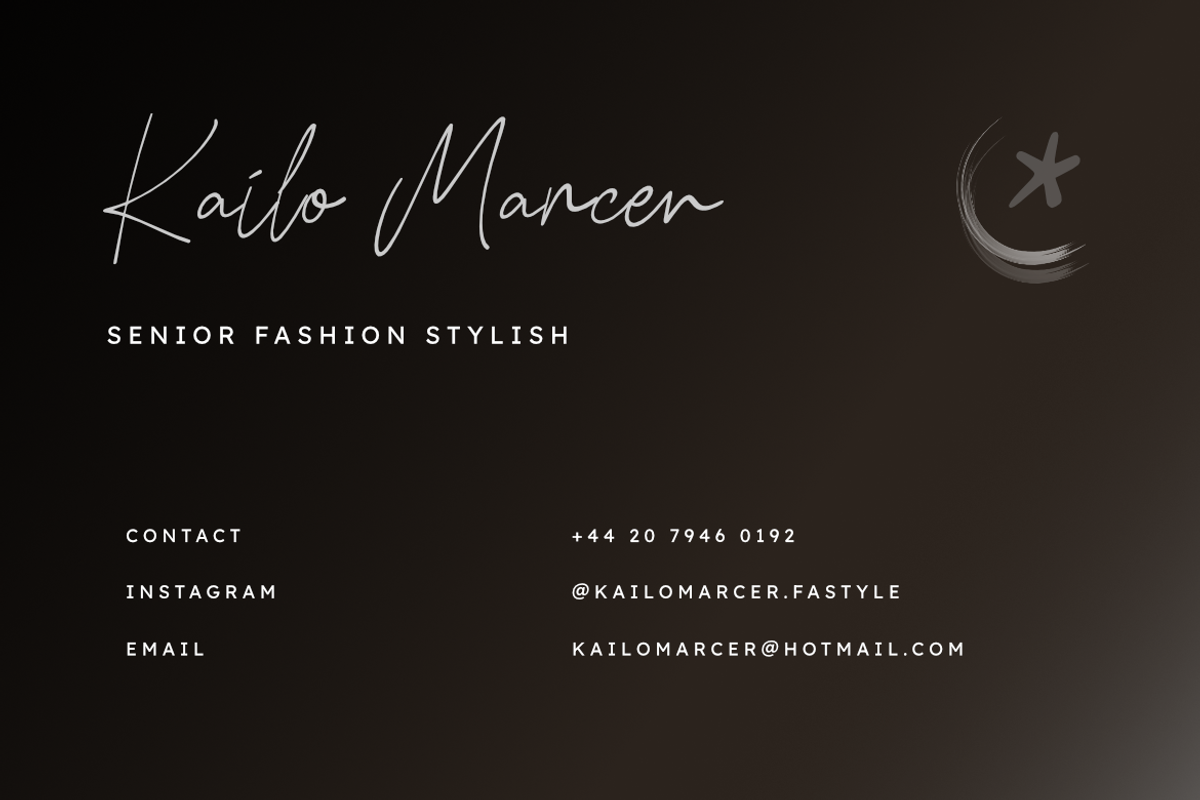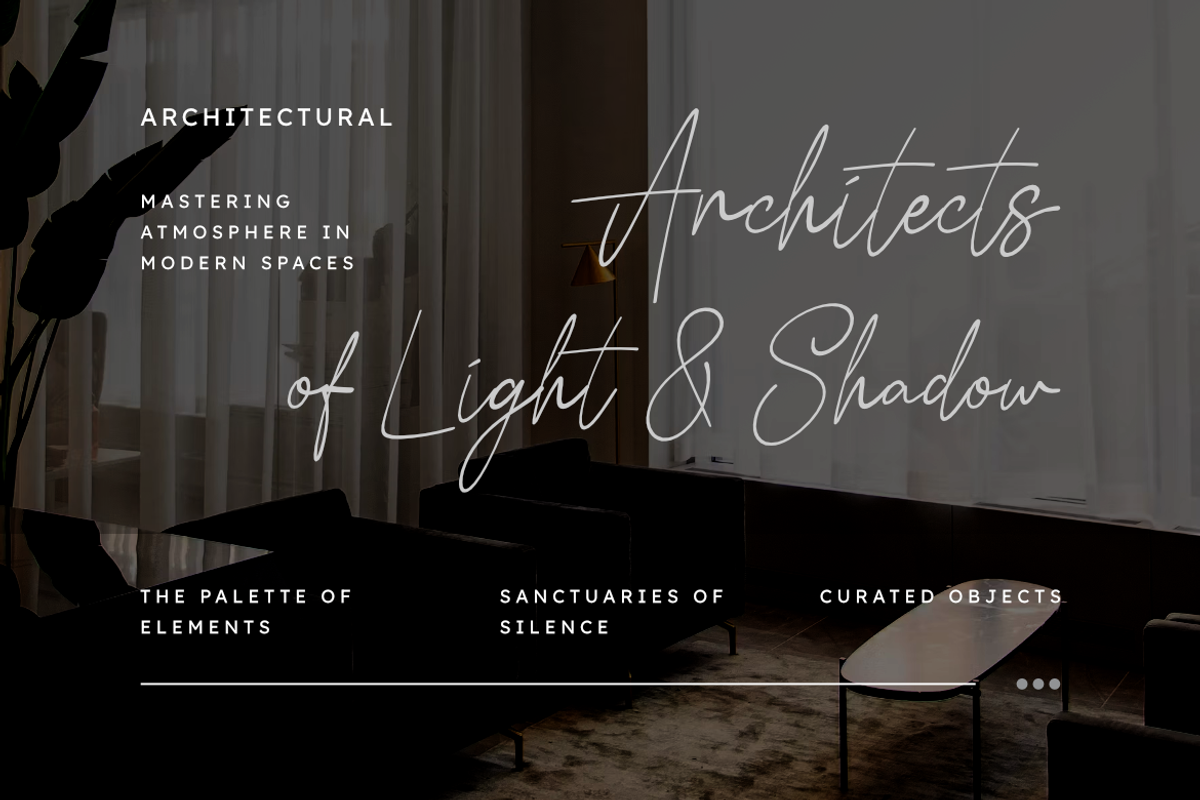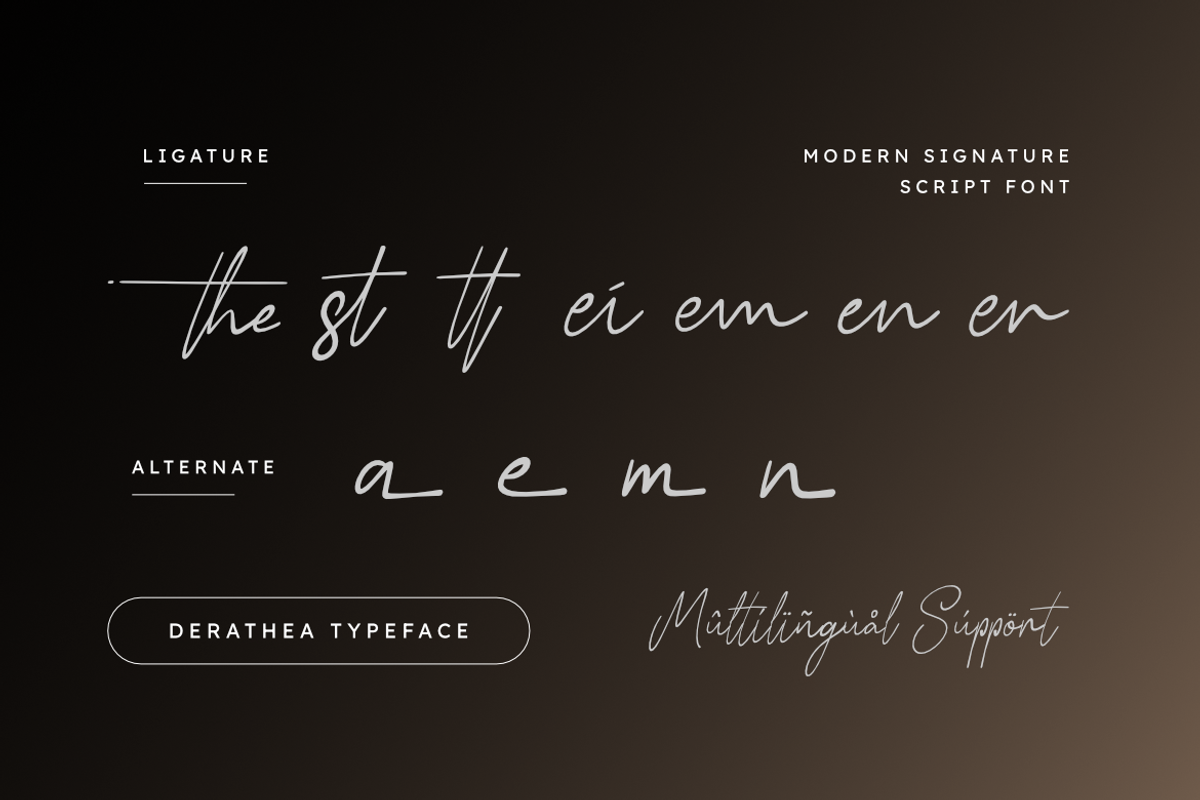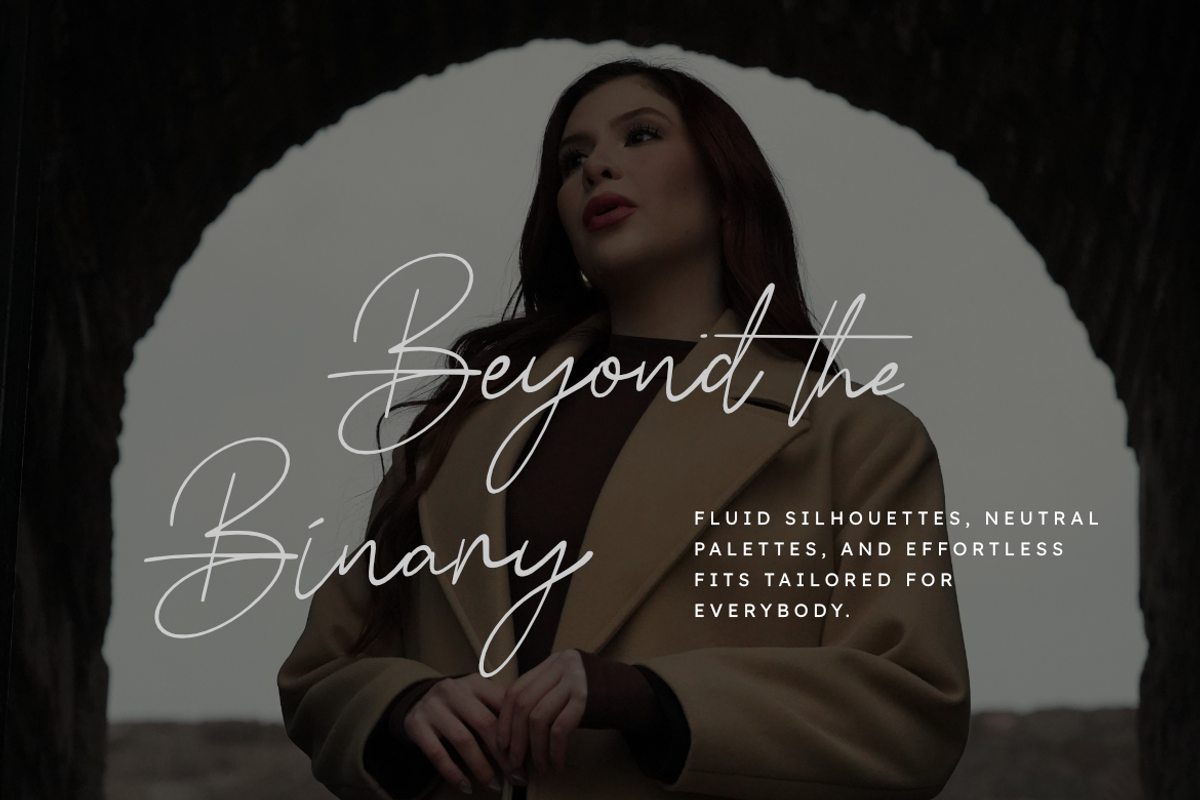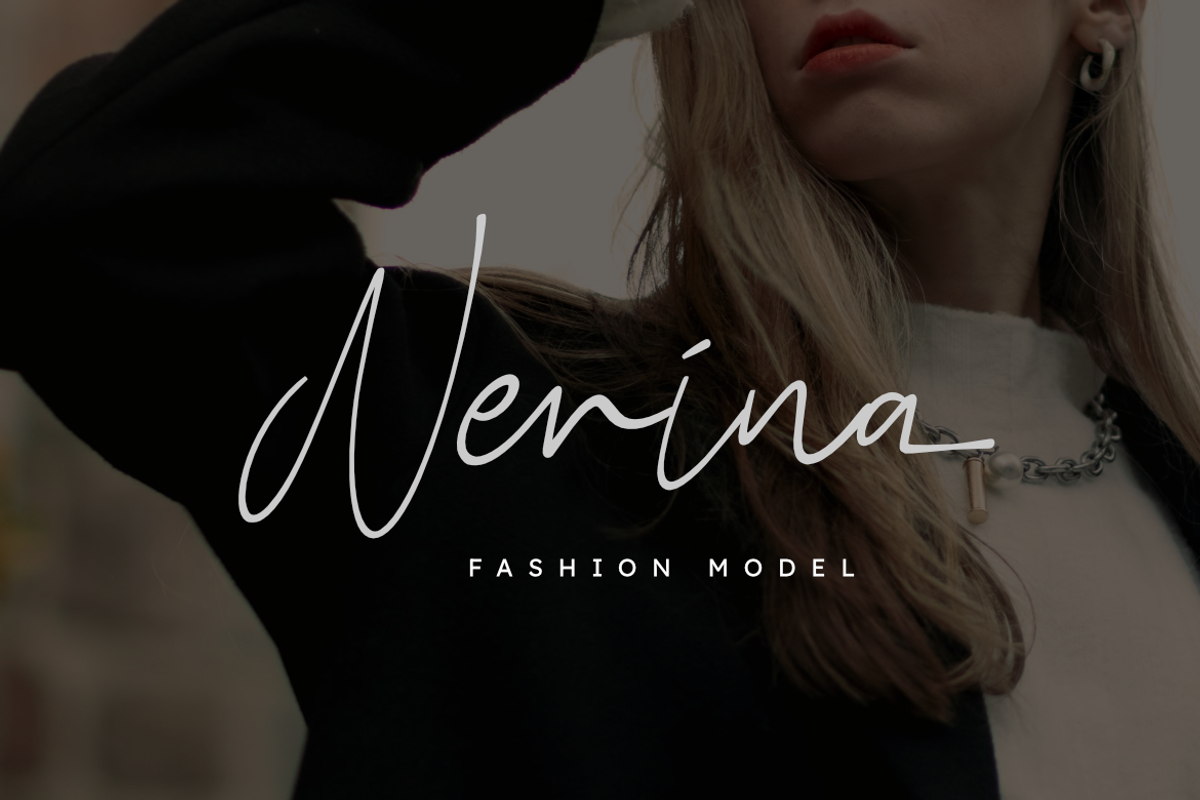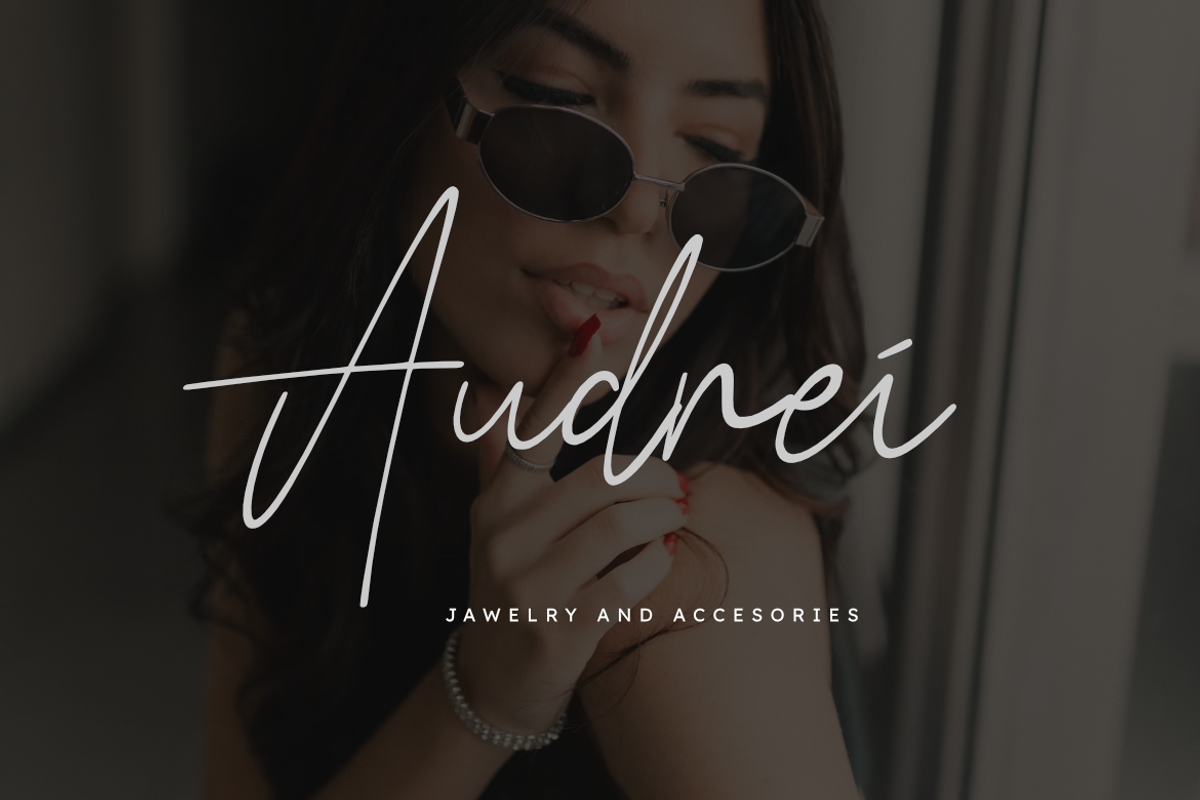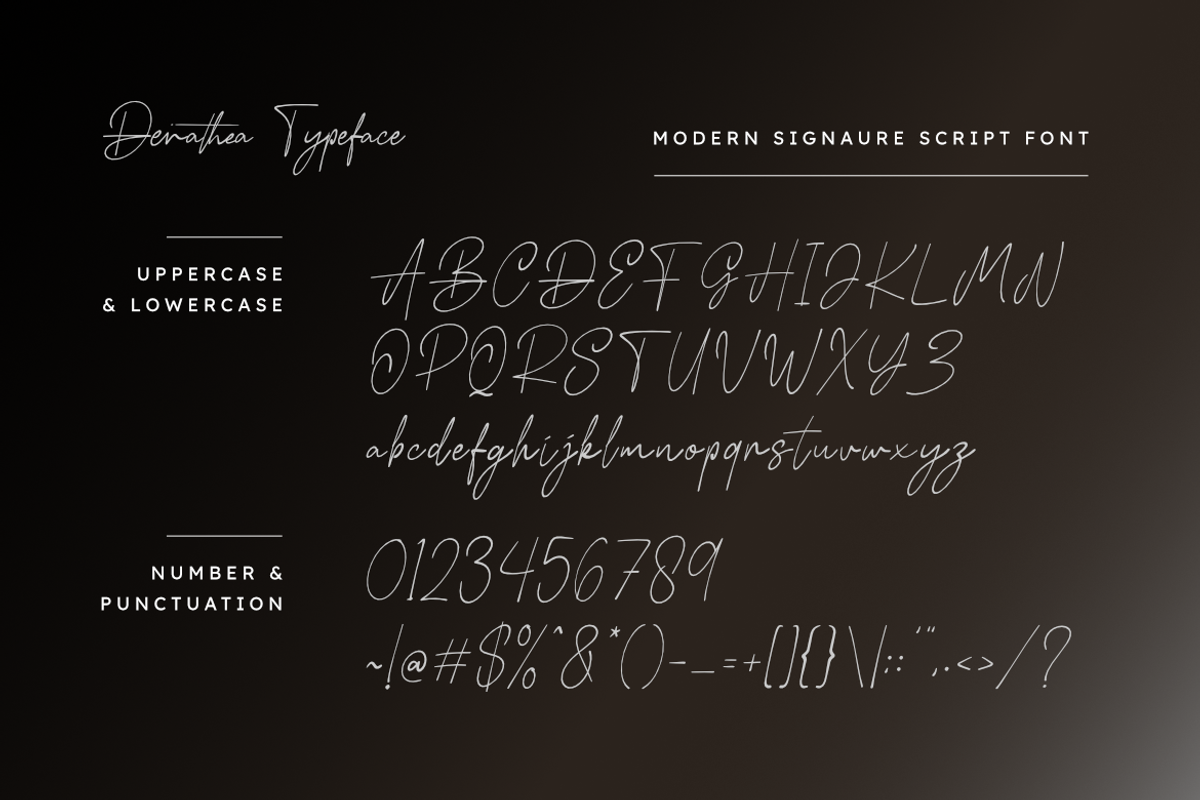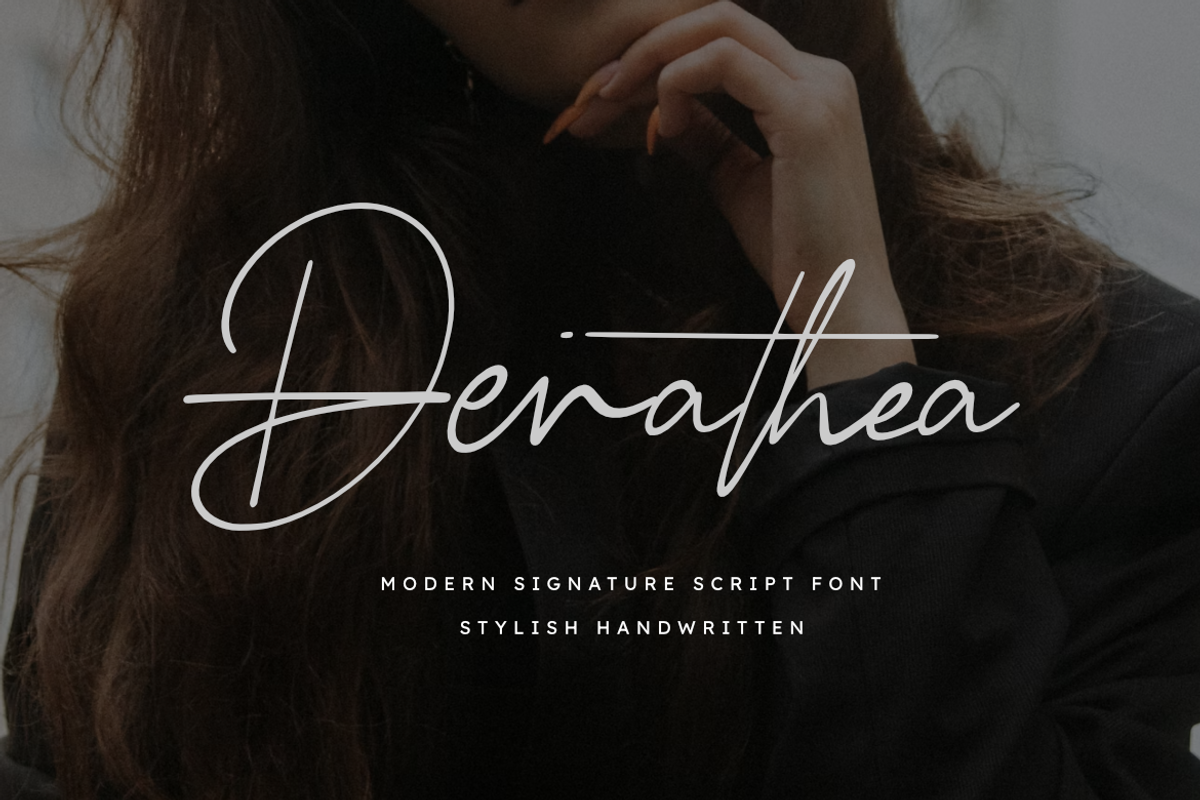
Derathea | Signature Font
Derathea | Modern Signature Script Font
Elevate your branding and design projects with Derathea, a stylish handwriting typeface meticulously crafted for elegance and personal touch. Blending authentic hand-drawn strokes with modern signature balance, Derathea provides a chic, high-end edge to your visual identity.
Whether you are building a brand for a beauty salon, designing romantic wedding invitations, or creating polished photography watermarks and promotional materials, this font delivers a graceful, professional finish. Its organic flow and distinctive signature silhouettes ensure that your message commands attention in both digital and print environments.
Perfect for high-impact signatures, wedding stationery, and luxury branding.